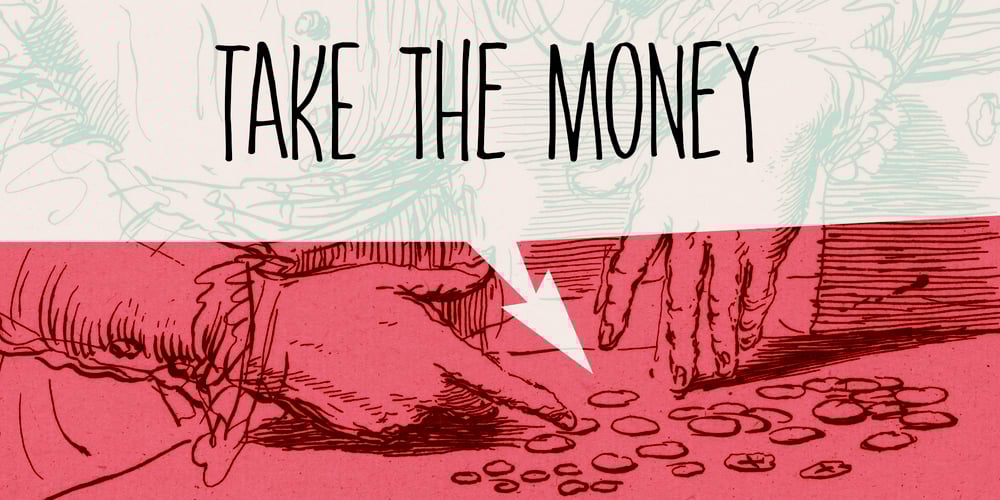
Take The Money Font Family was designed by David Kerkhoff and published by Kitchen Table Type Foundry. Take The Money contains 2 styles and family package options. Take The Money is a wonky all caps font, made with a Sharpie pen. The name was inspired by something I read in the newspaper: apparently a Danish artist received €72.000 from a museum to create two works of art. The works of art should depict the average income of someone from Austria and someone from Denmark – in real money. The museum then loaned him the €72.000 and told him he’d receive €3.300 for his work. The artist decided that €3.300 would merely cover the costs, so he delivered two empty canvases and called the work: Take The Money And Run.